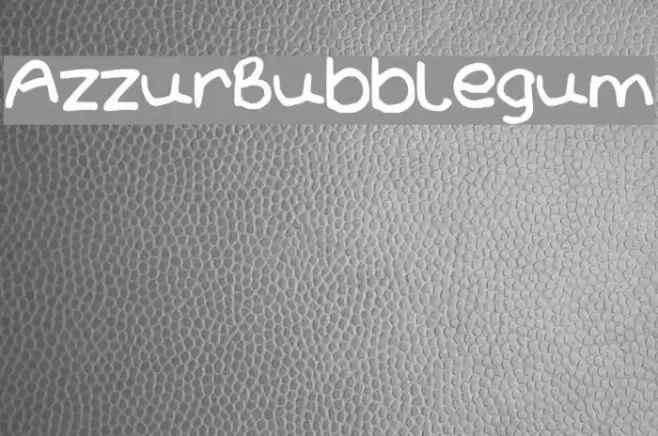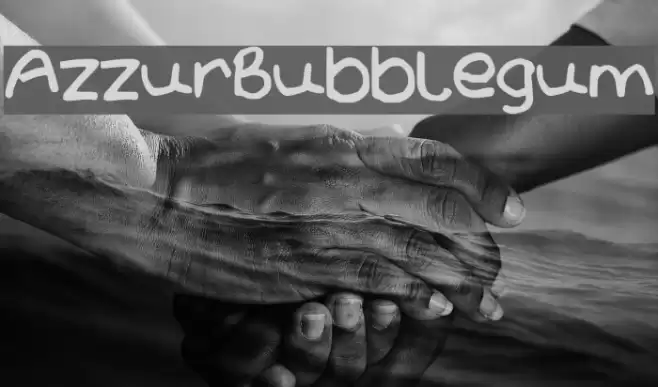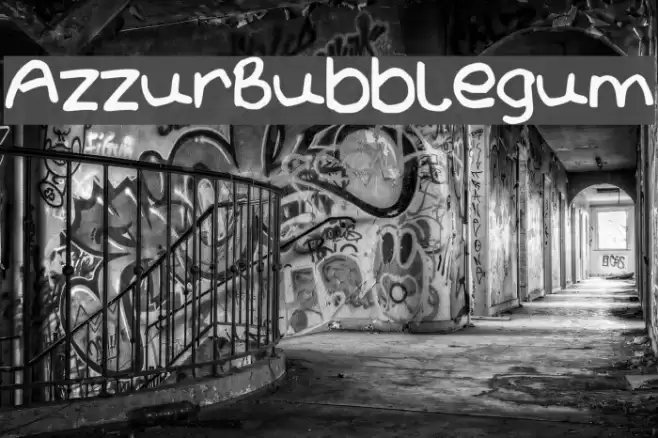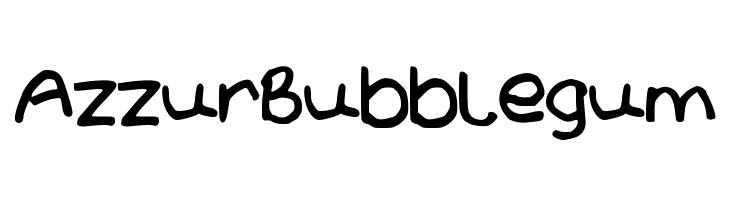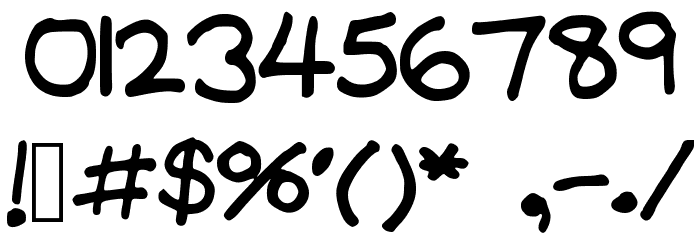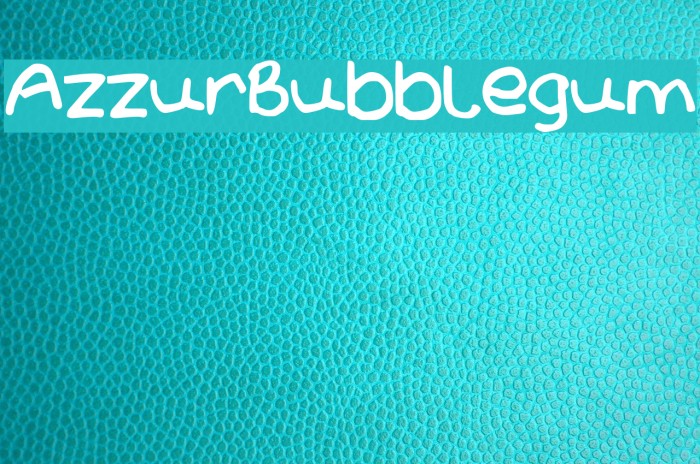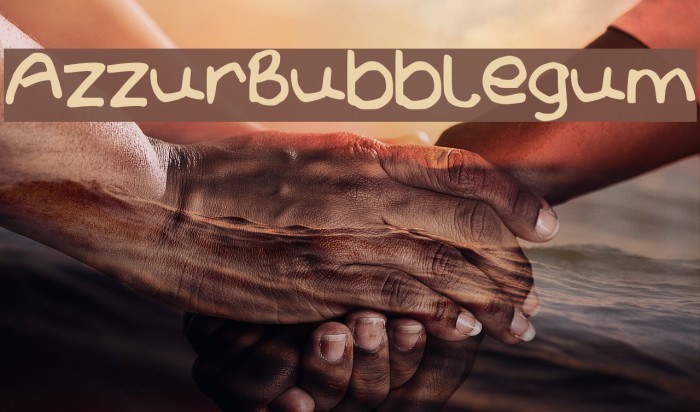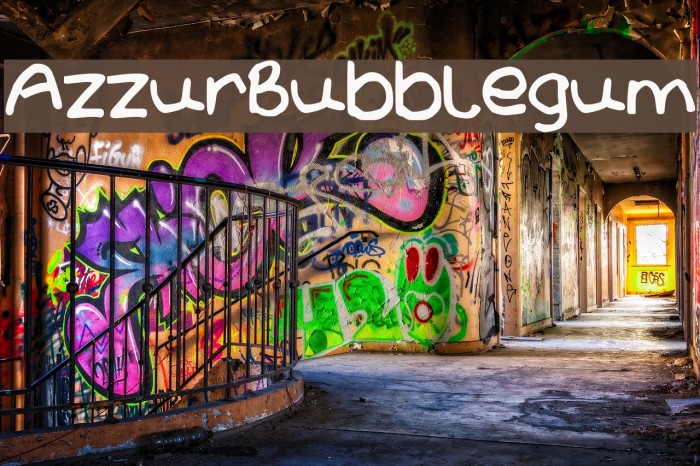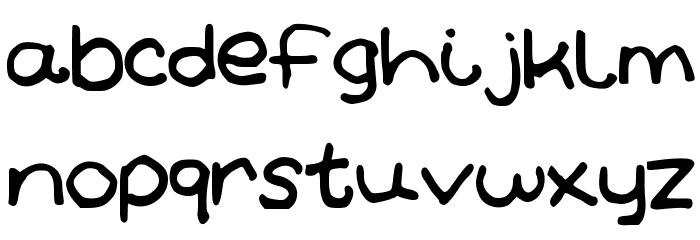
AzzurBubblegum Font
AzzurBubblegum Description
This playful and whimsical font features rounded, bubbly characters that exude a sense of fun and creativity. The letters are bold and slightly irregular, giving them a hand-drawn appearance that adds to their charm. The uppercase and lowercase letters maintain a consistent style, with smooth curves and a friendly demeanor. Numbers and special characters are equally expressive, making this font versatile for various uses. Its informal style is perfect for projects that require a touch of personality and warmth.
A playful, bubbly font with a hand-drawn, whimsical style from Uncategorized fonts.